From luxury boutique logos to romantic wedding stationery, hand-drawn typography brings an irreplaceable human touch to visual design. Incorporating aesthetic script fonts into your visual projects allows you to express grace, warmth, and sophistication effortlessly.
However, cursive typefaces require careful handling to keep them legible. Here is how to style script typography like a professional designer.
1. Never Use Script Fonts in ALL CAPS
Cursive and handwritten letters are designed to connect smoothly from one character to the next. Typing an entire word in uppercase script breaks these natural connecting strokes. Consequently, the text becomes completely unreadable. Always use title case or lowercase when applying cursive lettering.
2. Give Cursive Lettering Plenty of Breathing Room
Because script lettering features intricate loops, swashes, and delicate lines, crowding it with other graphic elements will make your design look cluttered. Surround your script text with generous white space so its graceful curves stand out clearly.
3. Use Script Fonts for Subtle Accents and Signature Logos
Script fonts carry heavy emotional weight, so a little goes a long way. Instead of using cursive for long paragraphs, use it strategically for:
- Boutique Signatures: Adds a custom hand-drawn logo mark for photographers and florists.
- Wedding Invitations: Perfect for bride and groom names, RSVP cards, and menus.
- Social Media Callouts: Creates aesthetic quote graphics and short promotion titles.
Recommended Fonts from Artisan Font
- Racole: A classic monoline script font with smooth, natural cursive connections.
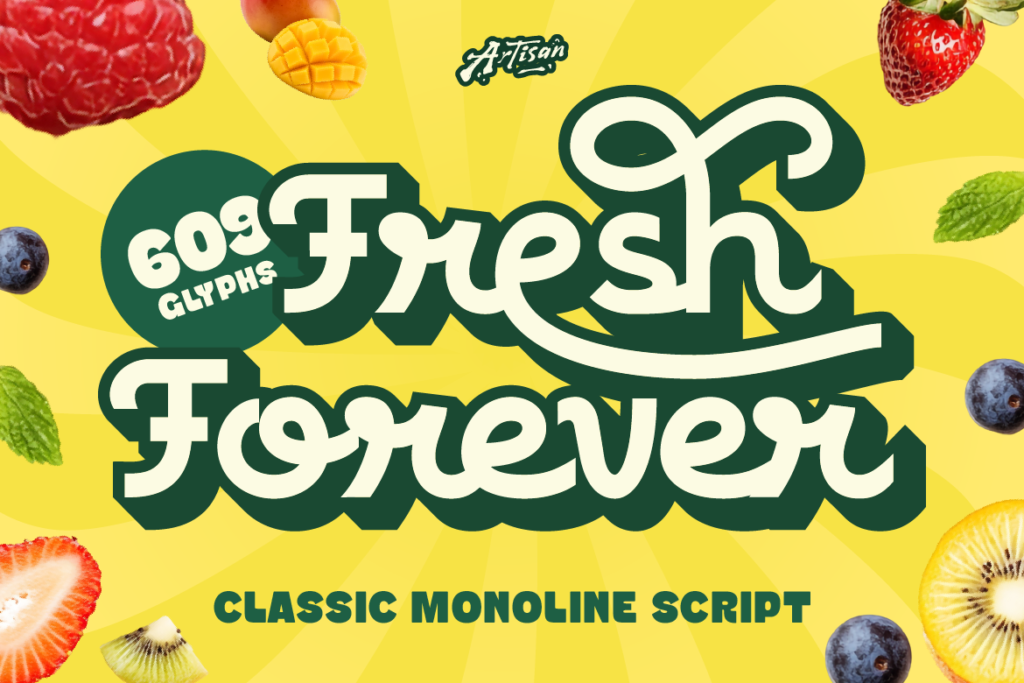
- Lisaline: An elegant script font crafted for romantic branding and boutique logos.